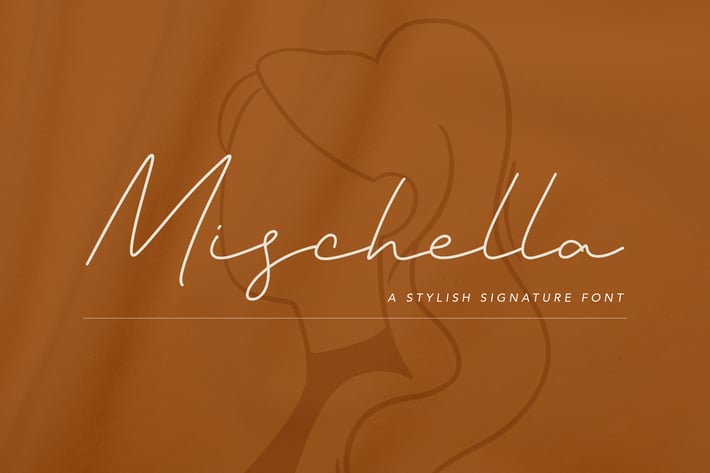
Mischella Stylish Signature Font
Add an elegant, modern, and personal touch to your designs with Mischella, a stylish signature font that captures the beauty of handwritten sophistication. With its refined strokes and fluid lines, this typeface is crafted to bring authenticity, charm, and creativity to any project. Whether you’re working on branding, invitations, or digital graphics, it provides the perfect balance of class and individuality.
About the Font
Mischella is a handwritten script font that reflects the natural flow and movement of genuine handwriting. Its delicate curves and stylish loops are designed to create a look that is both graceful and versatile. Unlike rigid or overly formal typefaces, it feels approachable and expressive, making it an excellent choice for projects that require a personal, handcrafted touch while maintaining professionalism.
The elegance of Mischella lies in its simplicity. Every character has been carefully designed to achieve a smooth balance between legibility and creativity. The result is a script font that looks polished enough for luxury branding yet warm enough for personal expression.
Type & Style
As a signature-style script, Mischella is tailored to emulate the refined beauty of an authentic handwritten signature. Its thin, clean lines and flowing letterforms make it suitable for both minimalist and decorative applications. The font’s contemporary look is versatile enough to adapt across modern, stylish, and elegant design themes.
Suitable Uses
This font set is a multipurpose typeface that can enhance a wide range of creative projects, including:
+ Brand Identity & Logos: Give your brand an elegant, signature-inspired look that feels unique and timeless.
+ Wedding & Event Stationery: Perfect for invitations, menus, and place cards with a romantic, graceful aesthetic.
+ Social Media Graphics: Add a chic, modern vibe to posts, headers, stories, and digital marketing visuals.
+ Product Packaging: From cosmetics and fashion to lifestyle products, Mischella enhances packaging with a touch of refinement.
+ Editorial & Print Materials: Elevate posters, magazines, flyers, or business cards with a clean, signature-style flair.
+ Personal Projects: Ideal for signatures, journaling, or any design that requires a handcrafted, stylish look.
Why Choose Mischella?
Mischella is designed for creatives who value both style and usability. It gives your designs a distinct identity, making them look polished and exclusive while staying versatile enough for different formats. The font’s refined strokes and fluid design ensure it adapts beautifully to both large display text and smaller details.
Whether you’re a designer, marketer, or small business owner, it offers the perfect blend of modern style and timeless charm. Its ability to create an elegant yet approachable tone makes it a must-have typeface in any creative toolkit.